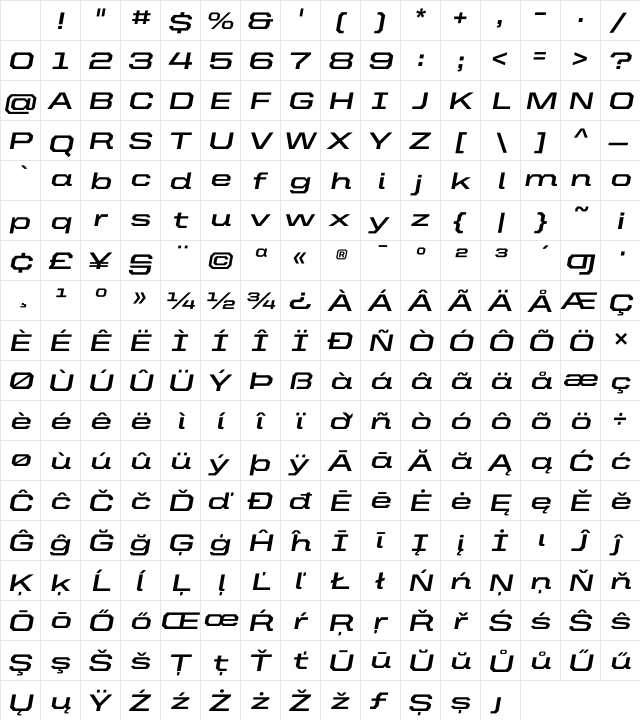
United Italic Ext is a composed and adaptable typeface that performs quietly and consistently across a wide range of design contexts. The slanted form adds forward momentum and visual energy. Its bold stroke weight gives it real presence on the page.
Pro Tip: Use United Italic Ext for emphasis, pull quotes, and subheadings where its slanted energy can add rhythm to the layout.